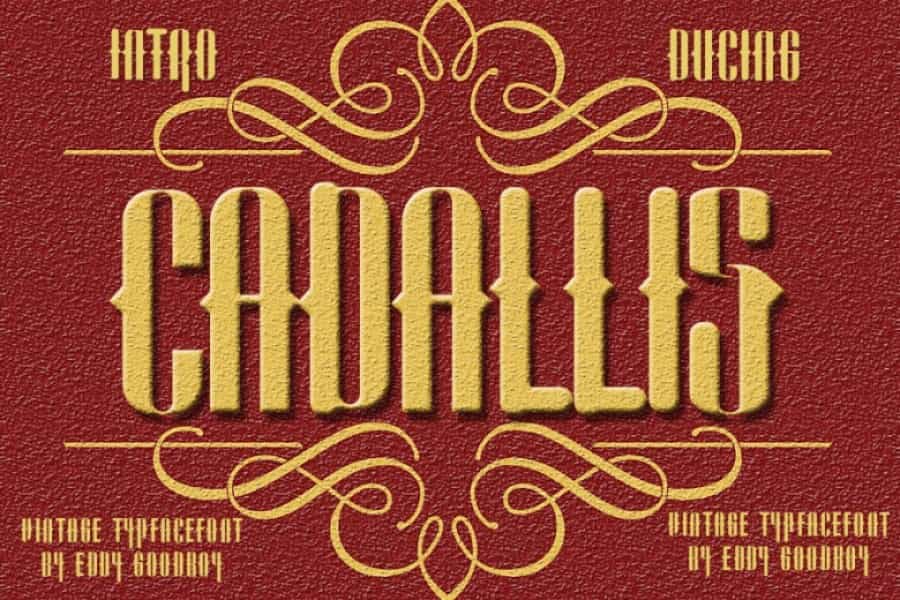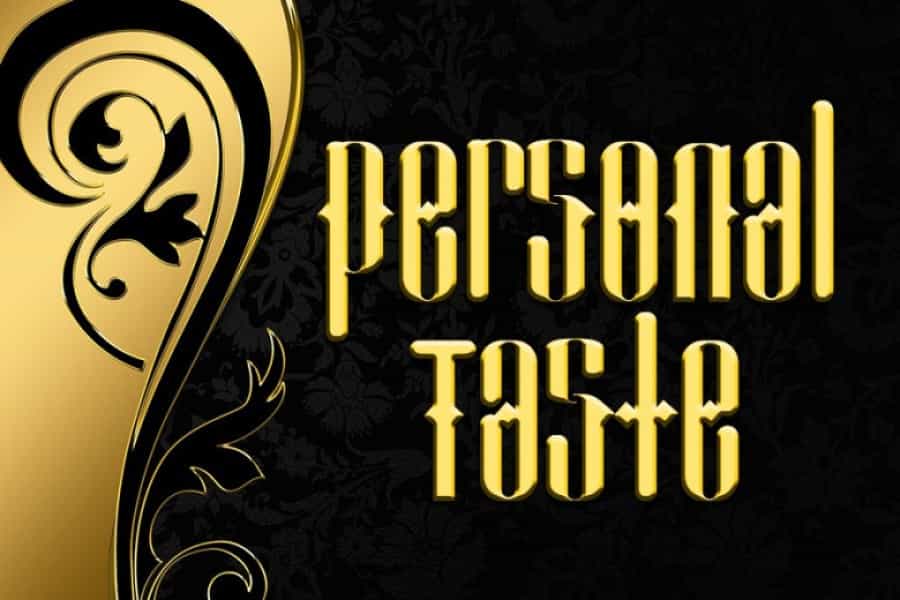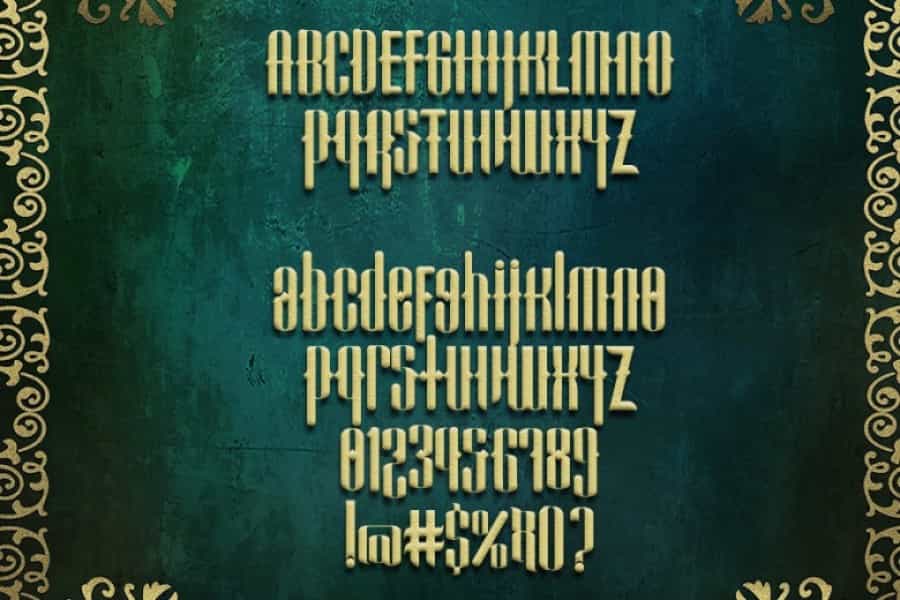
Cadallis is a beautiful blackletter font that was designed with intentions of being versatile for use in logos, advertisements, clothing, prints, posters, cards, invitations and posters; my research on my family crest and emblem influenced the simple yet stylish look of this font with modern touches of the old lettering.